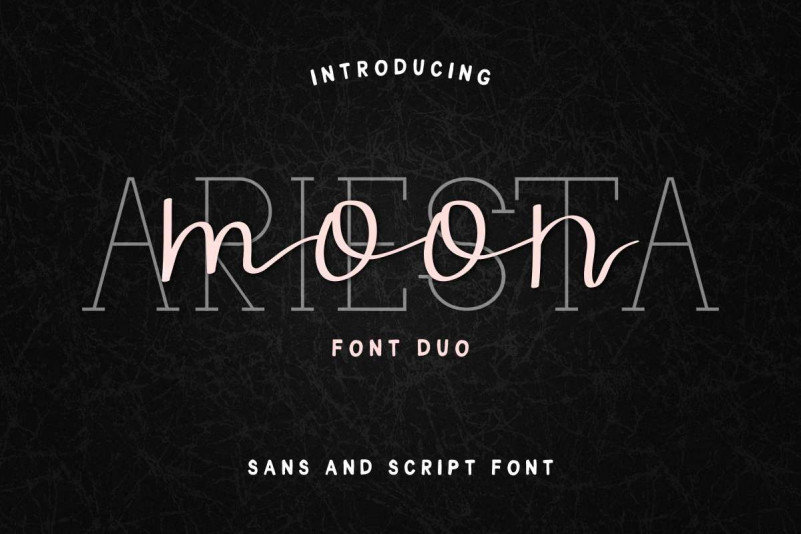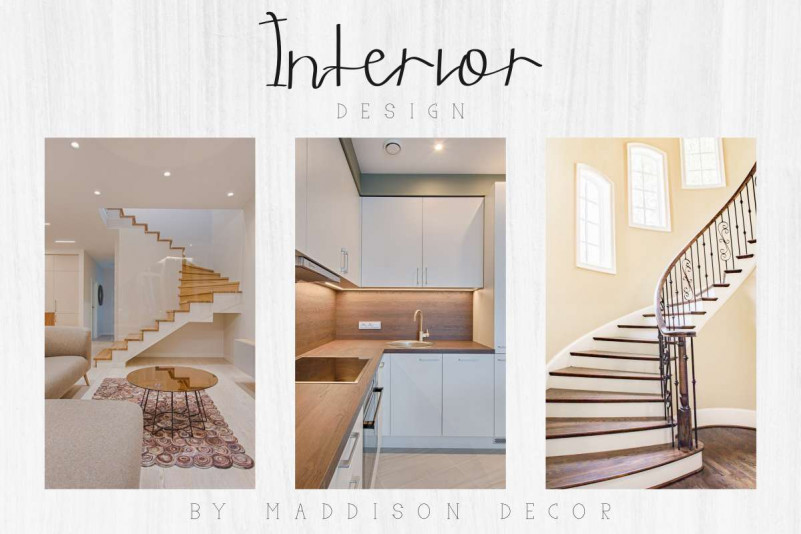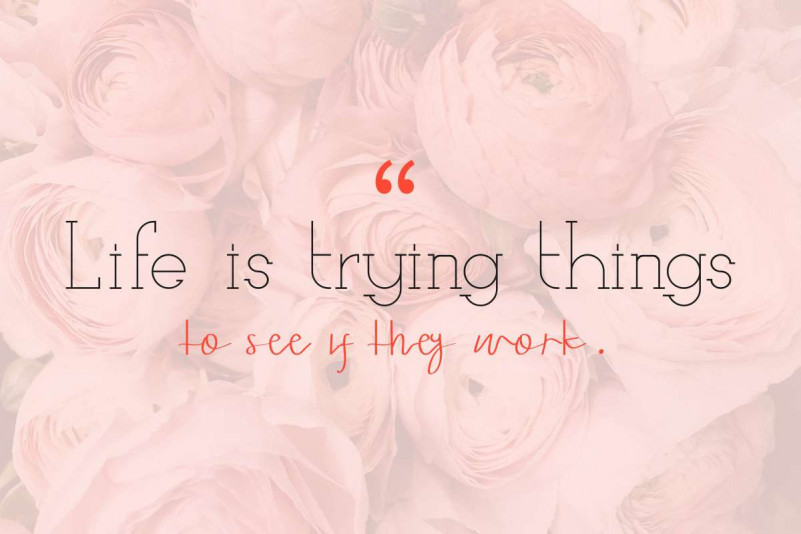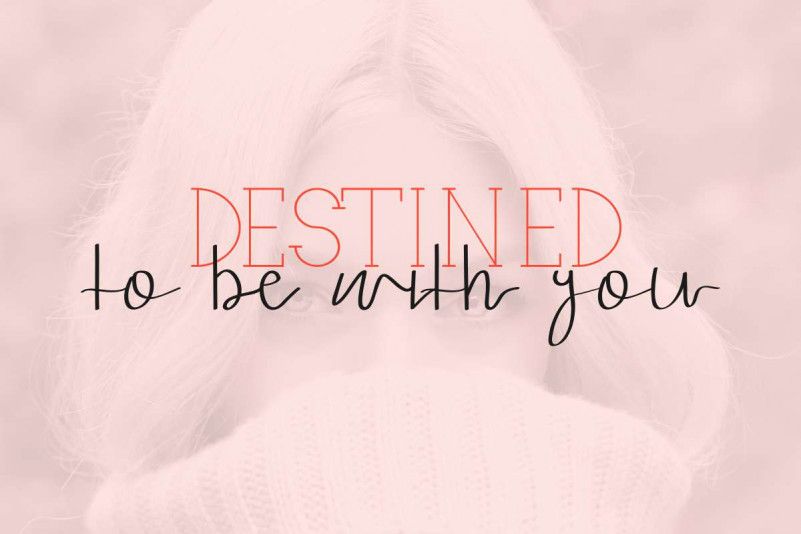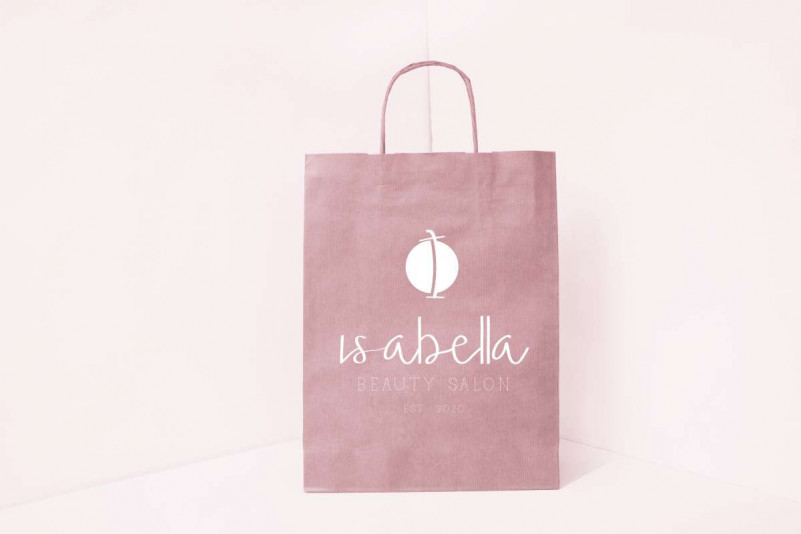
Ariesta Moon Font Duo
Edric Studio in 2020 Present to you : Ariesta Moon Font Duo It is a Handwriting Script plus Serif Typeface in a family font. It also support international languages characters. It works well on PC & Mac with Simple installations. Accessible in the Adobe Illustrator, Adobe Photoshop, Adobe InDesign, even work on Microsoft Word. It’s also PUA Encoded Characters – Fully accessible without additional design software.